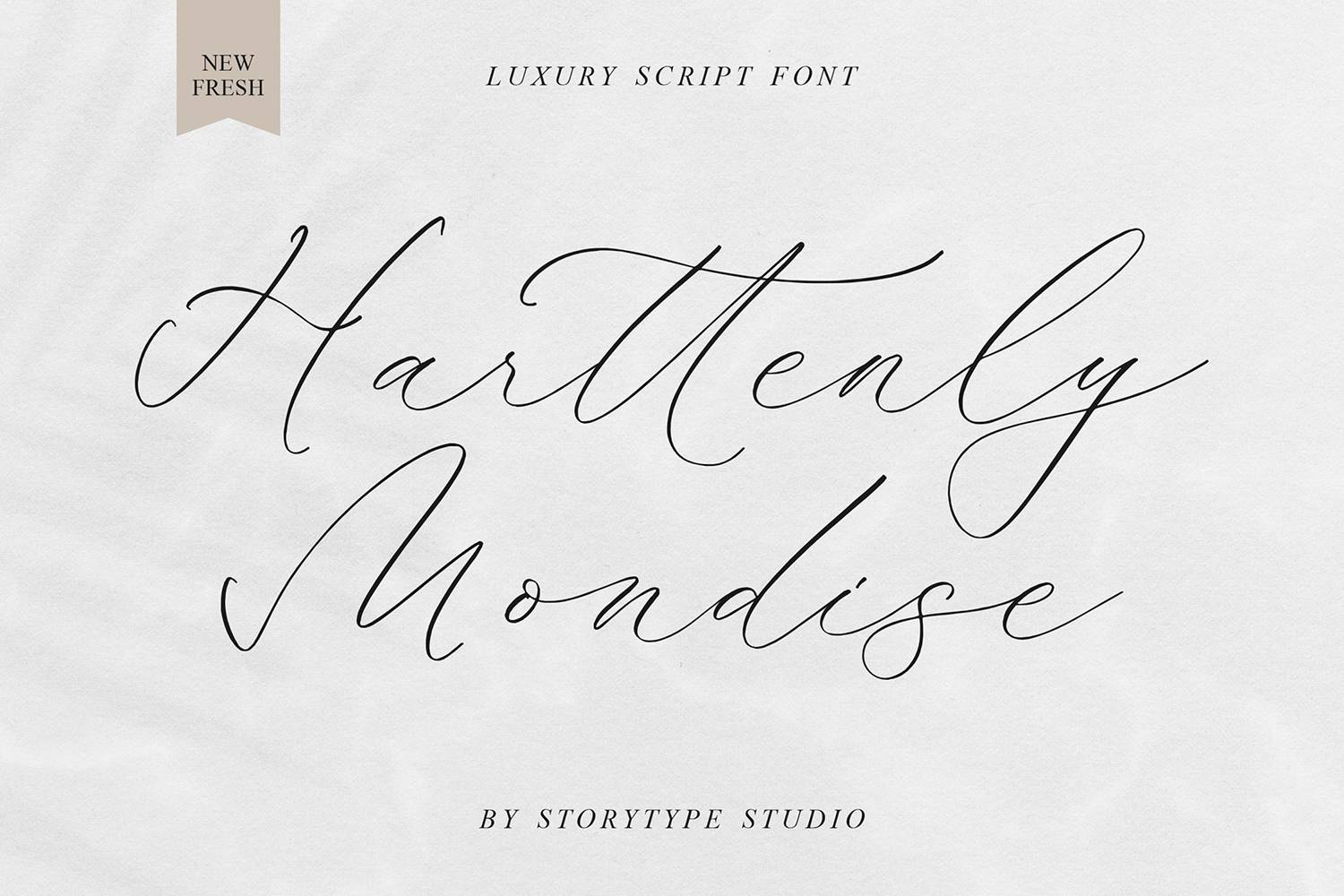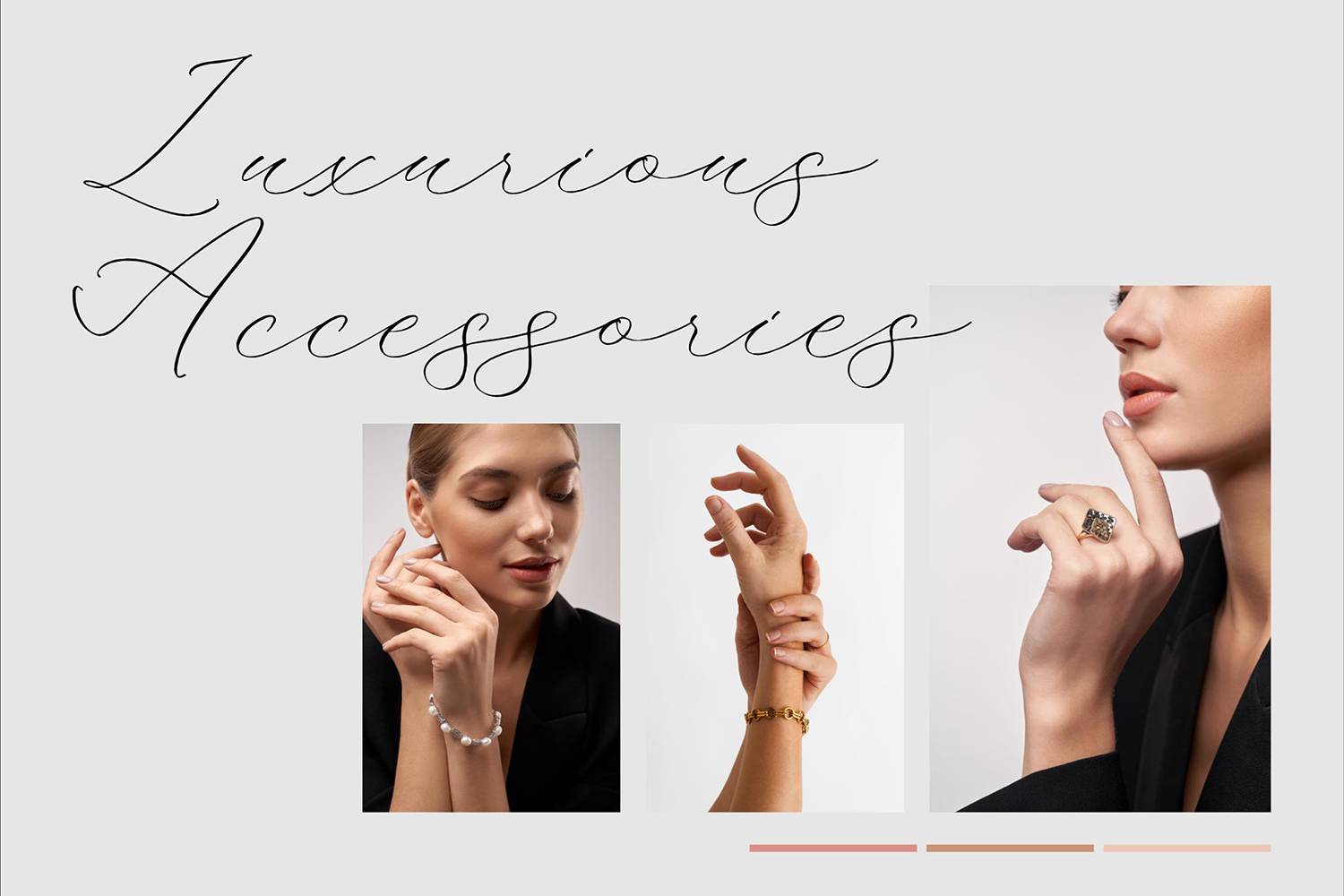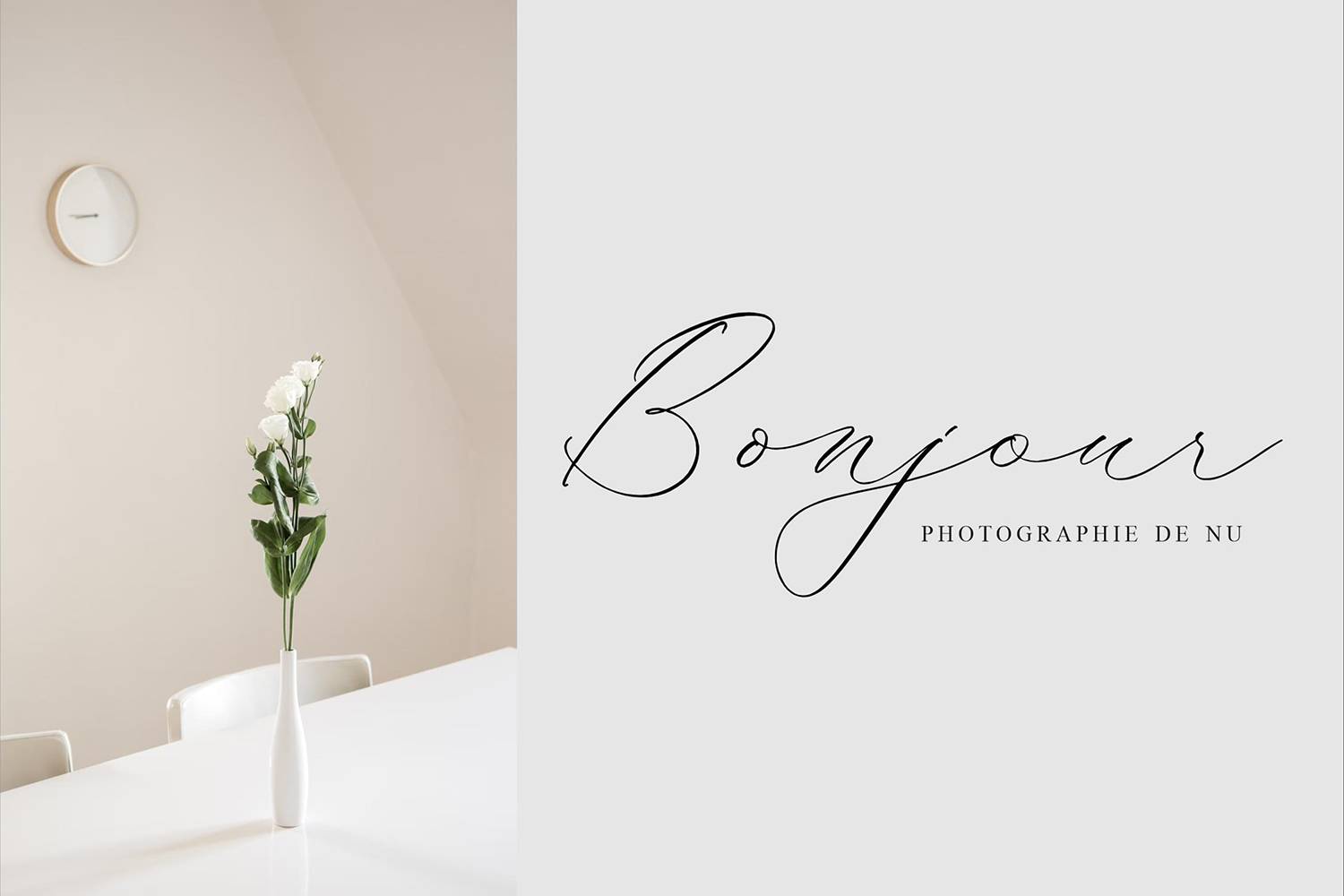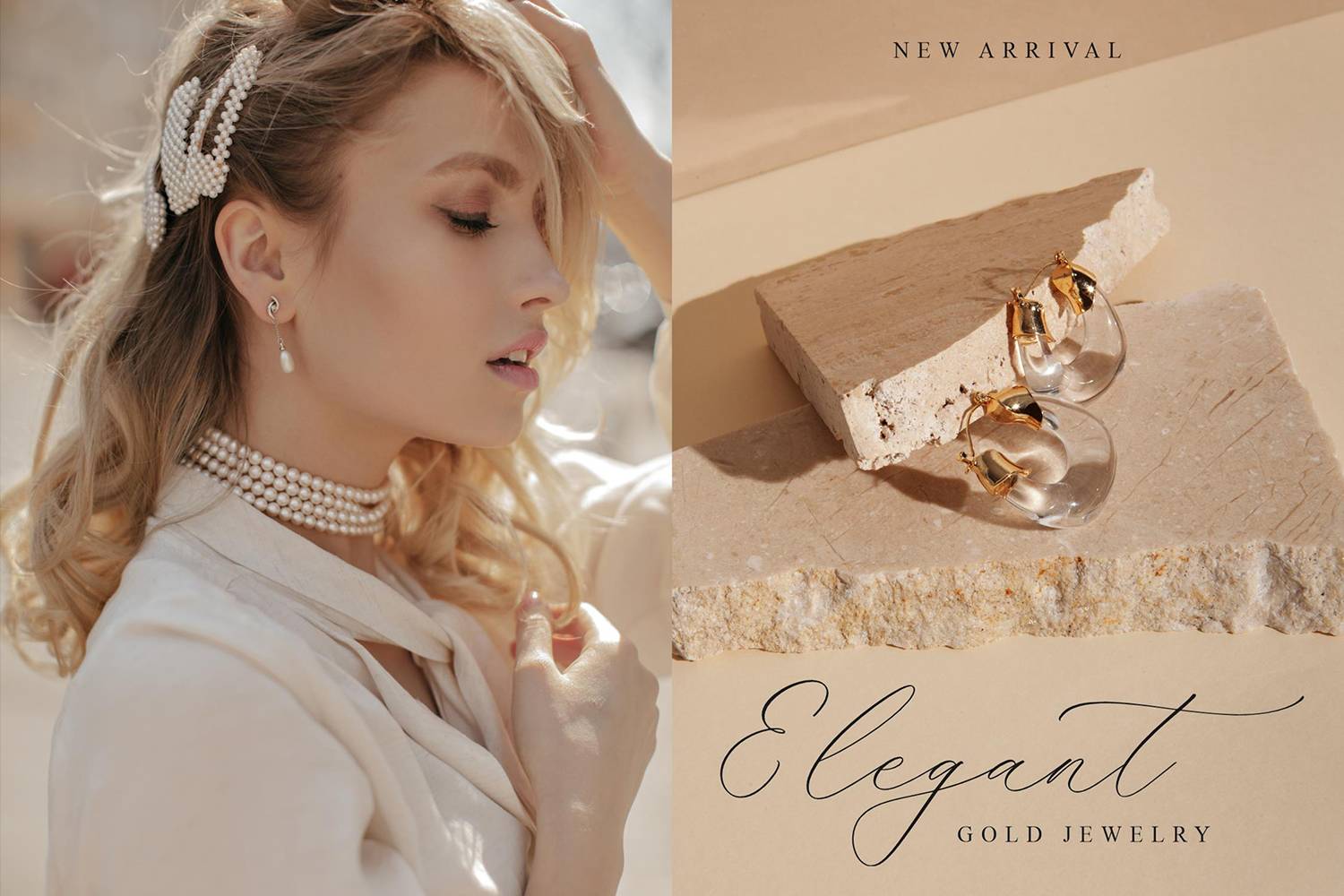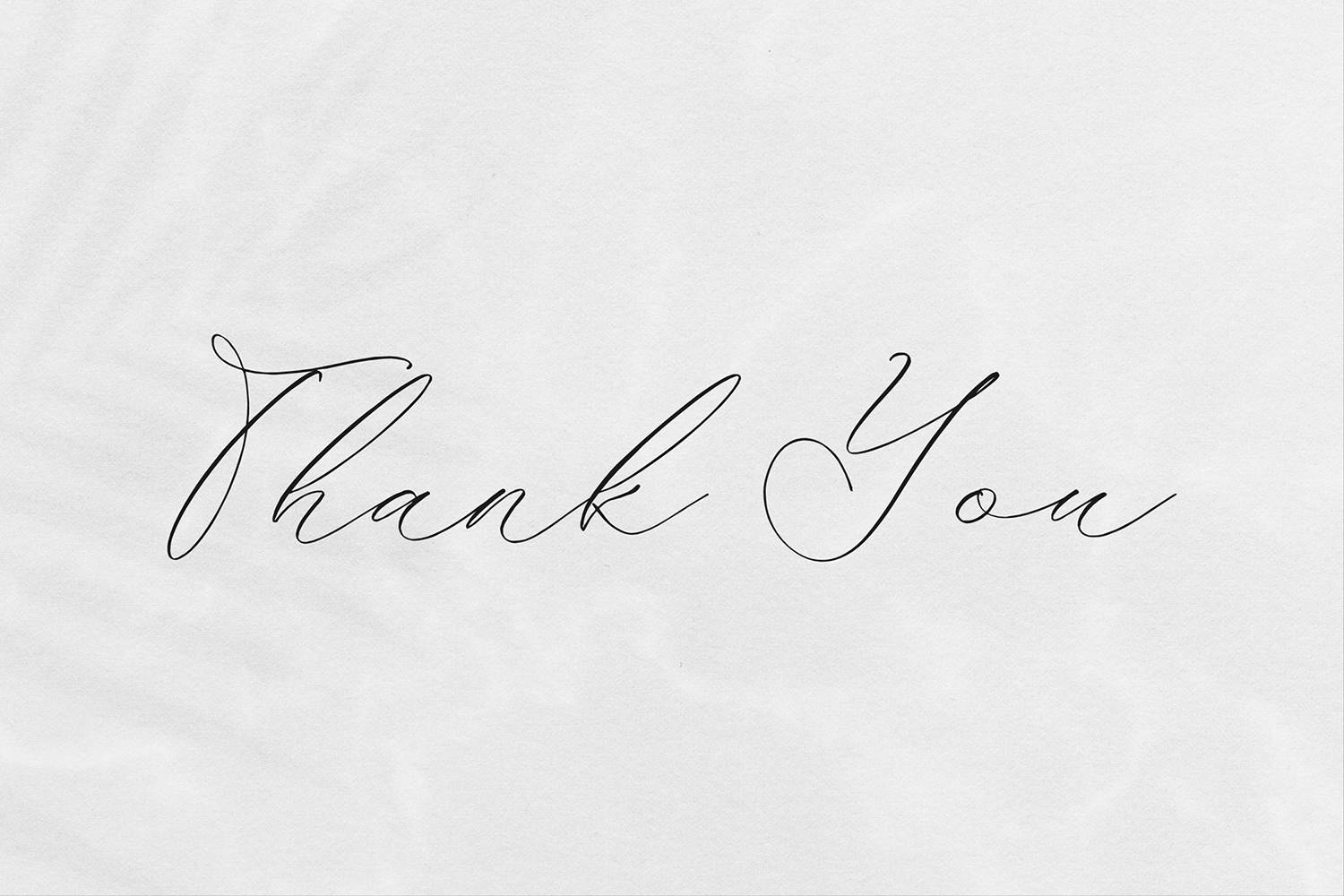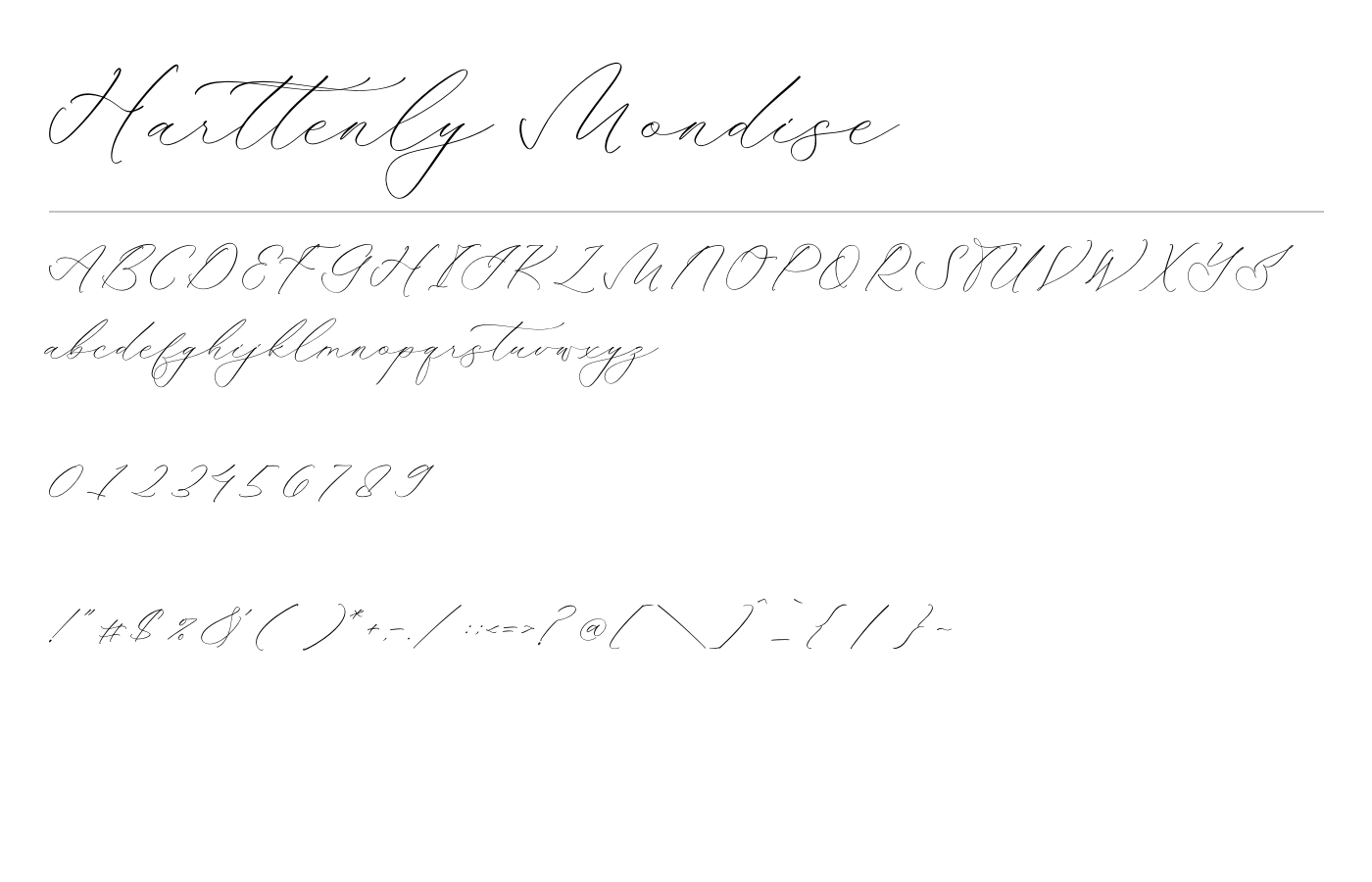
Harttenly Mondise is an elegant, delicate script font with fine, flowing strokes that mimic graceful handwriting. Its light weight and airy letterforms create a sophisticated and romantic feel, making it perfect for luxury branding, wedding invitations, and stylish editorial use where a touch of refinement is desired. This font shines in applications that benefit from its handwritten charm and airy elegance, adding a personal yet polished accent to design projects.
Harttenly Mondise Font
About Harttenly Mondise Font